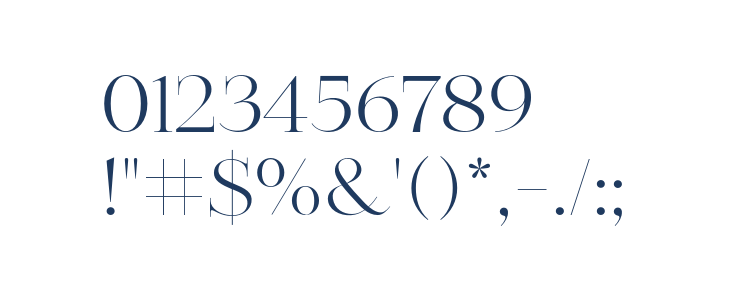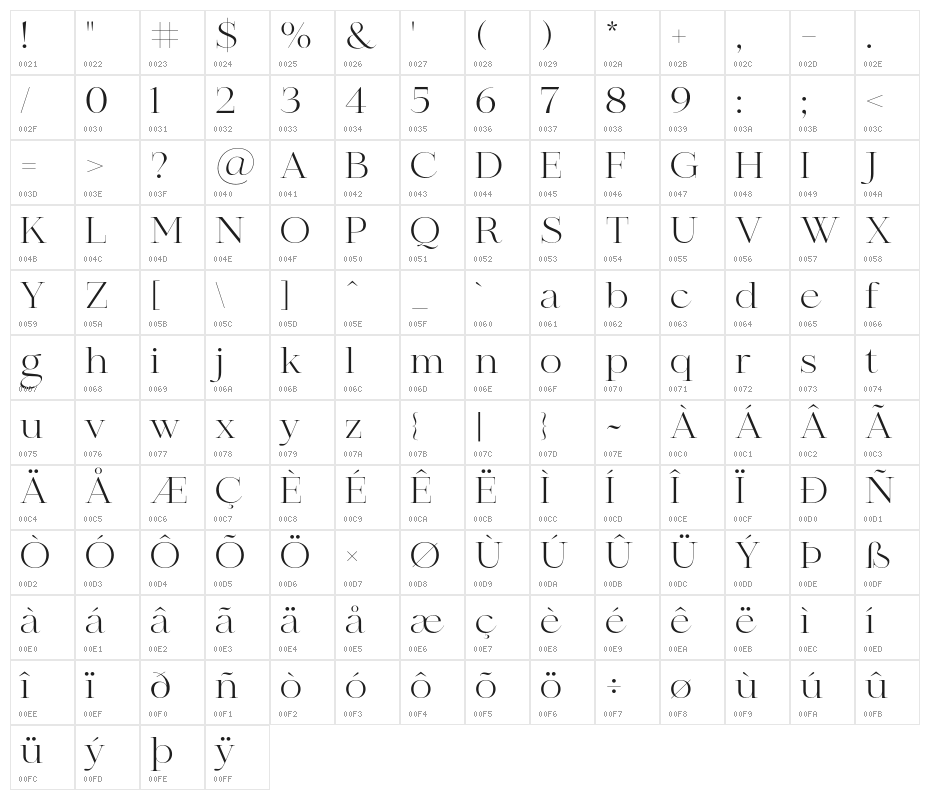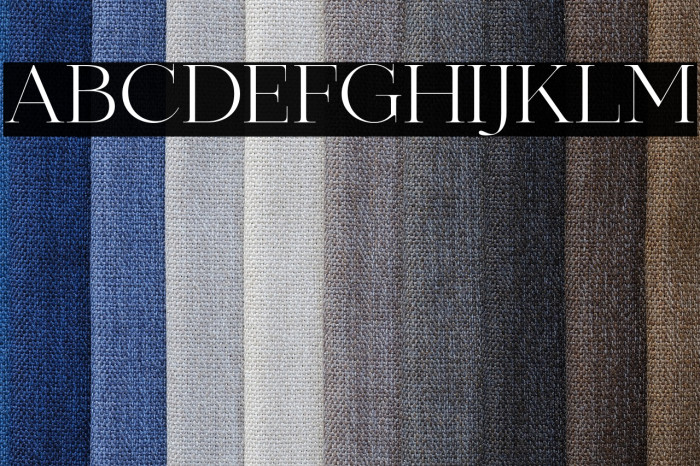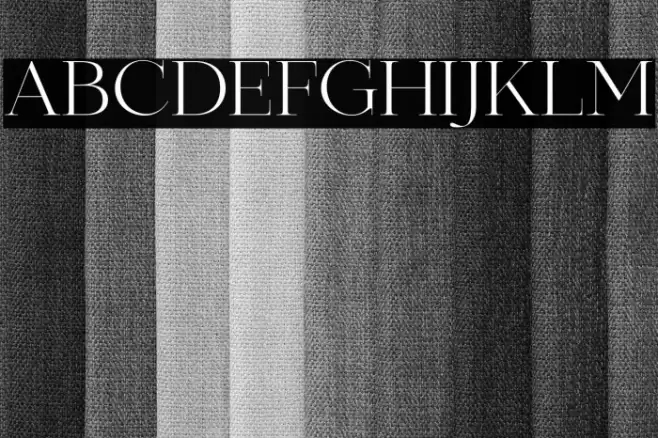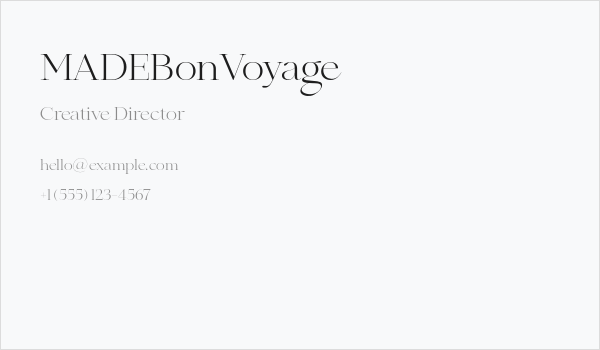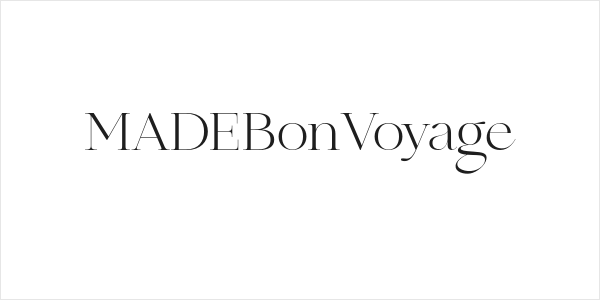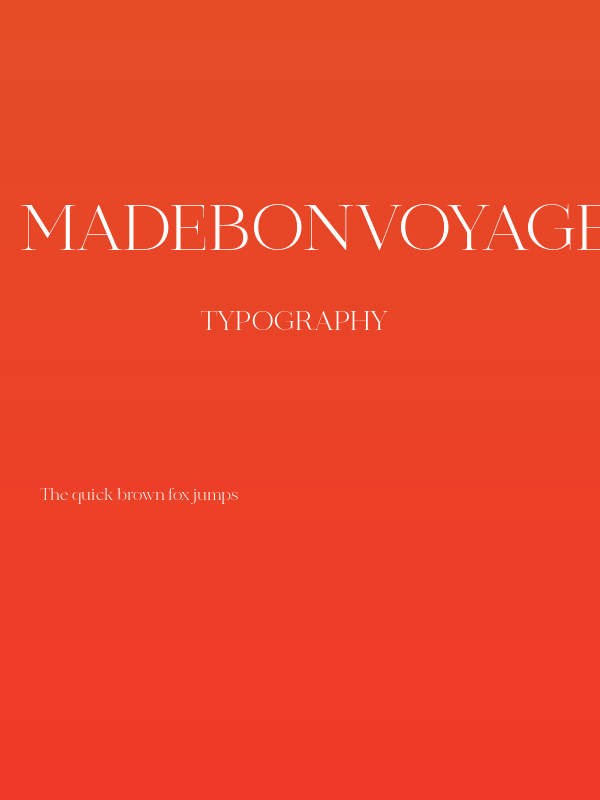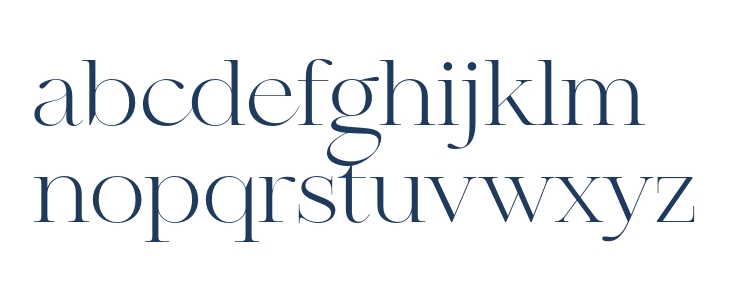
MADEBonVoyage Font
MADEBonVoyage Description
This elegant serif font features a refined and sophisticated design, characterized by its thin, elongated strokes and high contrast between thick and thin lines. The uppercase letters exhibit a classic and timeless appeal, while the lowercase letters maintain a harmonious balance with slightly rounded edges. The numerals are distinct and clear, ensuring readability. Special characters are thoughtfully designed to complement the overall aesthetic. This font exudes a sense of luxury and is well-suited for high-end branding and editorial design.
| Use Case | Headlines, Logos, Editorial Design |
| Proposed Projects | Ideal for luxury branding, editorial design, fashion magazines, and upscale product packaging. |